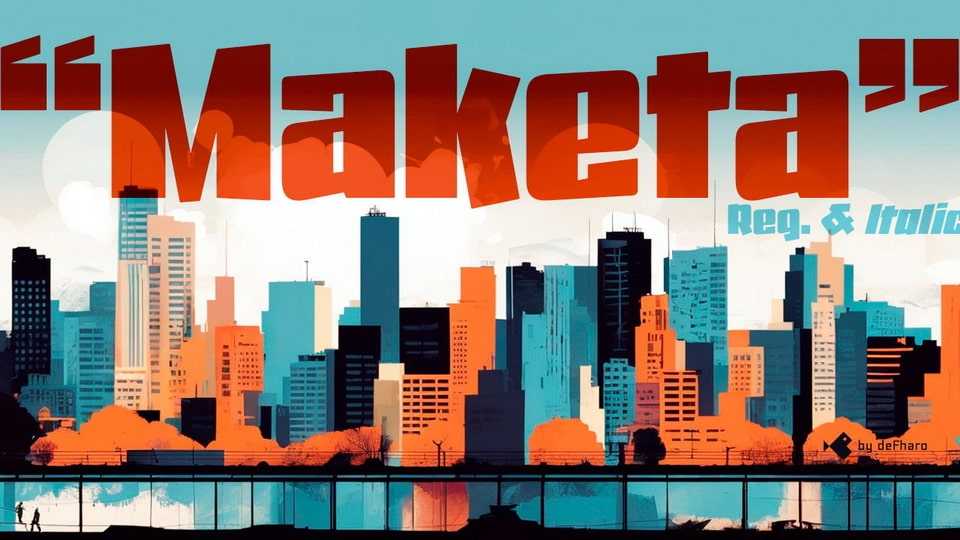
Download Maketa font, a typeface that combines impact, dynamism, and sophistication. Its stroke evokes an aesthetic somewhere between calligraphy and modernist fonts.
Designer: Fernando Haro